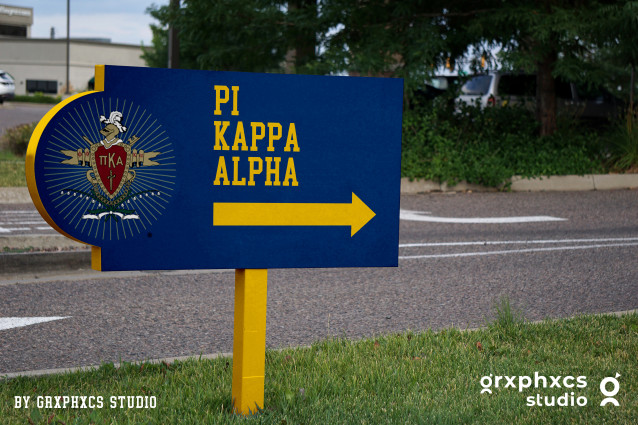
Fratlab Font
Found in: Slab Serif Fonts
Fratlab Font
Fratlab Font is a slab serif font. No matter the theme, this font will be an amazing asset to your font library, as it has the ability to enhance any creation.